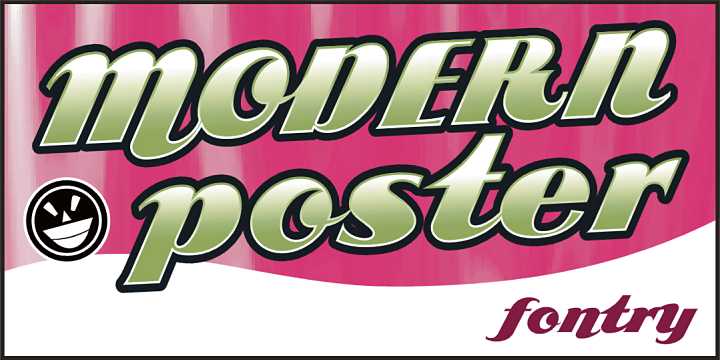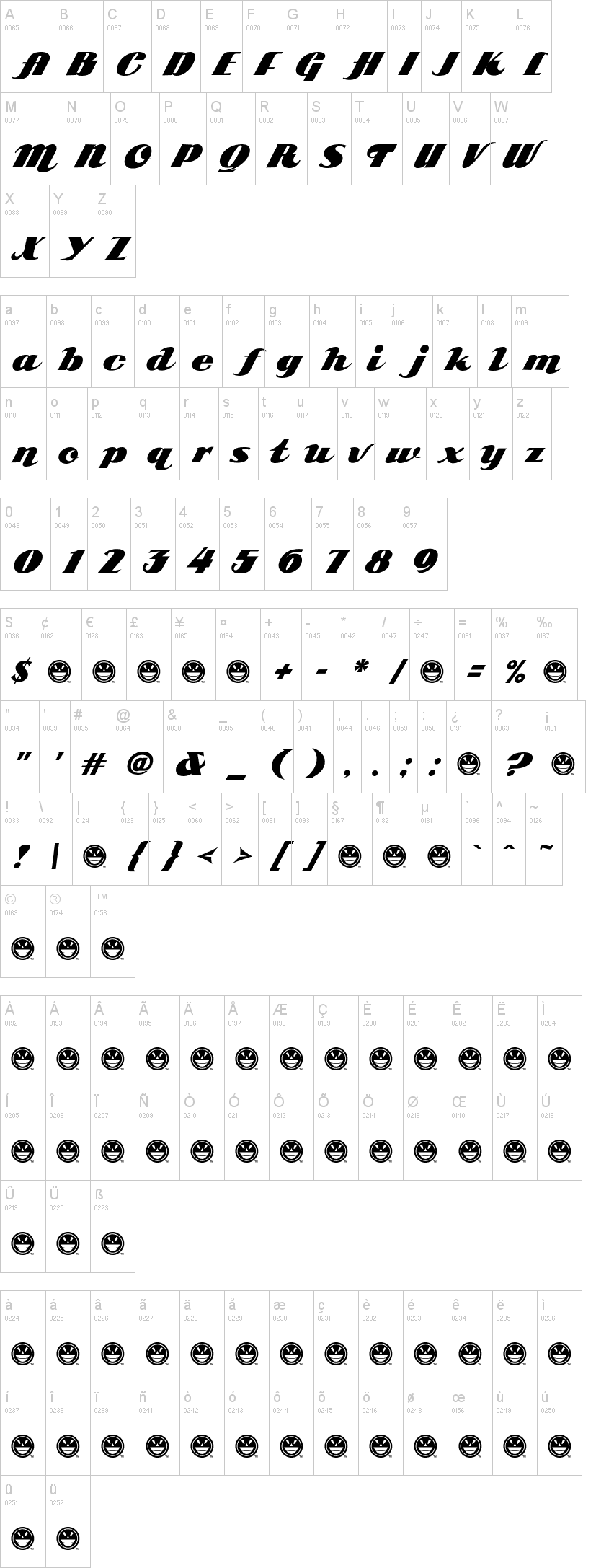
Note of the authorARB 85 Modern Poster JAN-39 by Michael G Adkins
Beginning in January, 1932, Becker, at the request of then-editor E. Thomas Kelly, supplied SIGNS of the Times magazine's new Art and Design section with an alphabet a month, a project predicted to last only two years. Misjuding the popularity of the "series," it instead ran for 27 years, ending finally two months before Becker's death in 1959, for a grand total of 320 alphabets, a nearly perfect, uninterrupted run. In late 1941, almost ten years after the first alphabet was published, 100 of those alphabets were compiled and published in bookform under the title, "100 Alphabets," by Alf R. Becker.
As published in January, 1939, this is the description that accompanied Becker's 85th alphabet, Modern Poster Script:
This is MODERN POSTER SCRIPT--Alphabet No. 85, an attractive style with swing and highly suitable for modern poster and card work. It is heavy and bold, yet graceful, and it can be made with good speed.